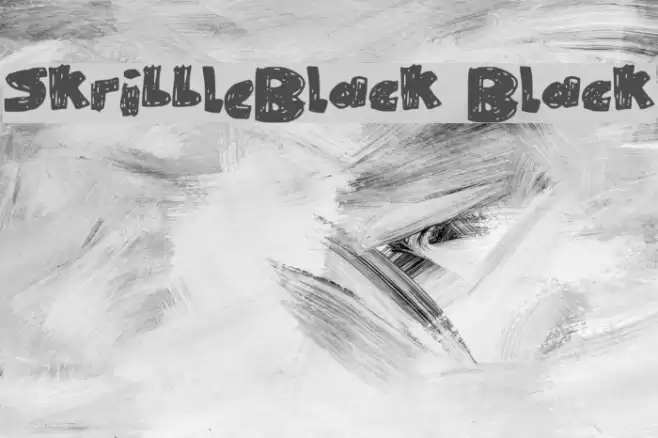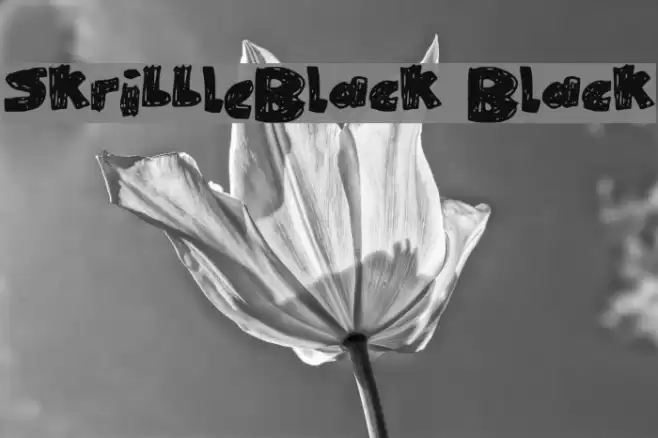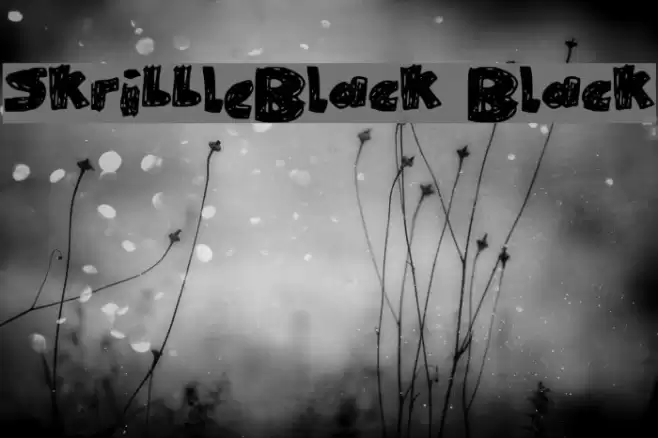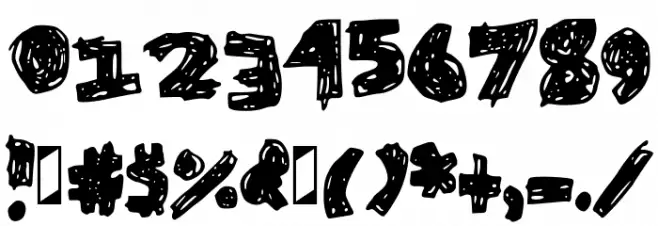
SkribbleBlack Black Font
SkribbleBlack Black Description
This font features a bold, hand-drawn style that mimics the appearance of a thick marker or brush stroke. Each character is filled with scribble-like patterns, giving it a playful and artistic feel. The letters are irregular and slightly tilted, adding to the casual and informal aesthetic. The uppercase and lowercase letters maintain a consistent style, with rounded edges and varying line thickness. Numbers and special characters follow the same design, ensuring a cohesive look across all elements. This font's unique texture and bold presence make it stand out in any design.
A bold, hand-drawn font with scribble patterns and a playful, artistic style from Uncategorized fonts.